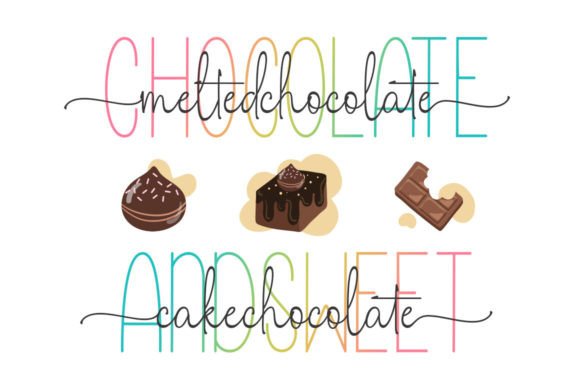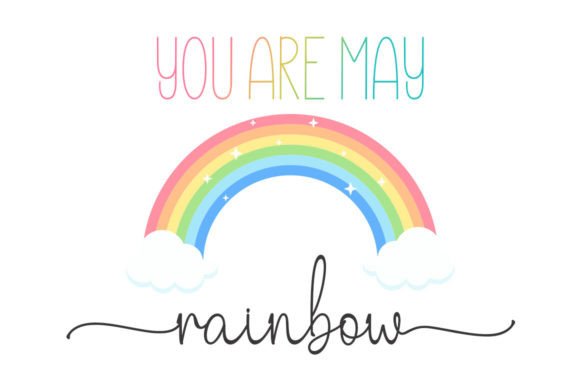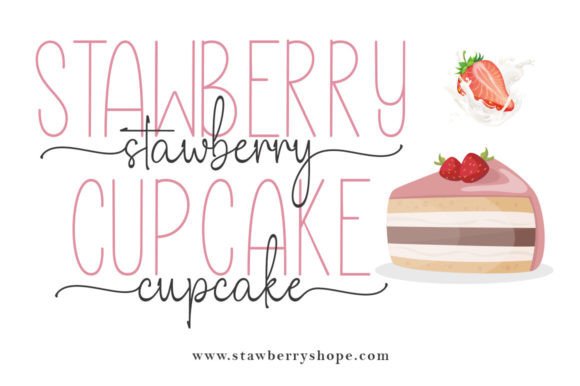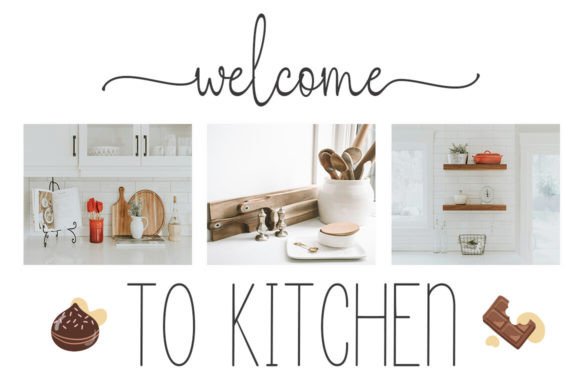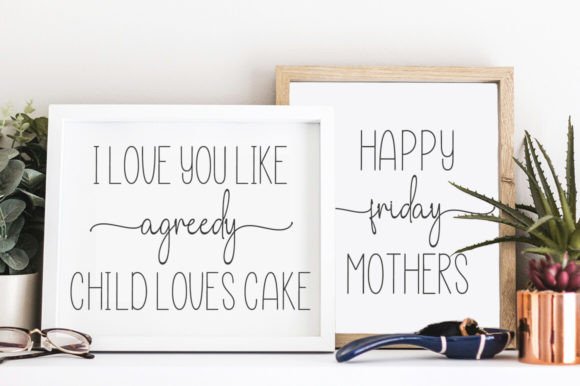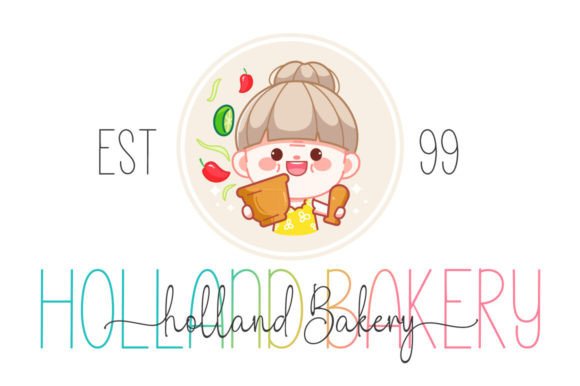
Introduction to Hello Rainbow Duo Font
Hello Rainbow Duo, a smooth duo font that combines sans serif and script, serves a variety of uses.
Whether embellishing a heartfelt greeting card or adorning a catchy title, this stunning typeface brings a romantic touch to every creation Featuring PUA coding, Hello Rainbow Duo allows easy access to the gamut of glyphs and ligatures, ensuring seamless integration into any design canvas.
Hello Rainbow Duo Font offers exceptional quality and versatility, making it a valuable addition to your design toolkit. Whether you’re creating for personal projects or commercial use, Hello Rainbow Duo Font delivers professional results.